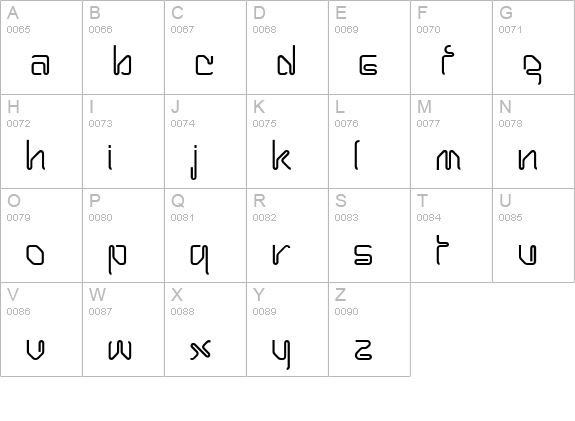
Harpoon font is a spectacular typeface that combines elegance with a touch of boldness. Its sleek and modern design makes it perfect for various creative projects, from branding to advertising. With its clean lines and distinct letterforms, Harpoon font effortlessly captures attention and adds a sophisticated touch to any design. What makes Harpoon font even more remarkable is that it is available for free! You heard it right, this stunning font can be downloaded at no cost from FontsMarket.com. This means that you can enhance your projects with this eye-catching typeface without breaking the bank. Whether you need a font for a professional presentation, a striking logo, or a captivating website, Harpoon font is an excellent choice. Its versatility allows it to adapt to different design styles and contexts, making it a valuable asset for designers, creatives, and enthusiasts alike. The smooth curves and balanced proportions of Harpoon font create a harmonious visual experience, while its well-defined characters ensure legibility even at small sizes. This font is truly a harmonious blend of aesthetics and functionality. Download Harpoon font today from FontsMarket.com, and enjoy the freedom of using this exceptional typeface in your next design project. With its striking presence and the fact that it is freely available, Harpoon font will undoubtedly elevate your designs and leave a lasting impression on your audience.